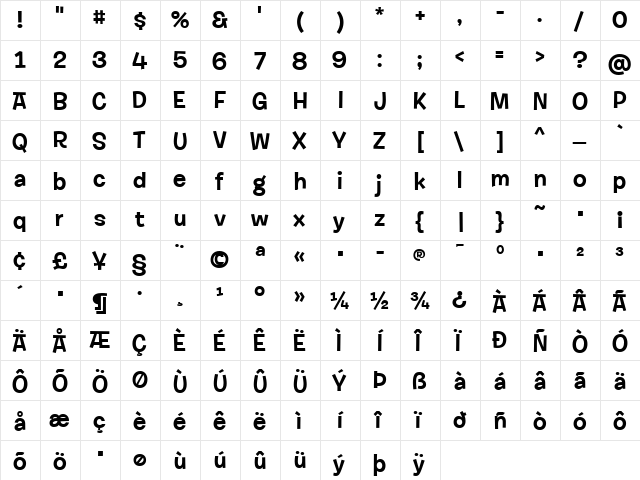
Shag-Lounge Regular
| Foundry | House Industries |
| Designer | Tal Leming |
Design Context for Shag-Lounge Typeface
Shag-Lounge takes a measured approach to typography — its balanced proportions and neutral character make it a reliable workhorse for both digital and print work.